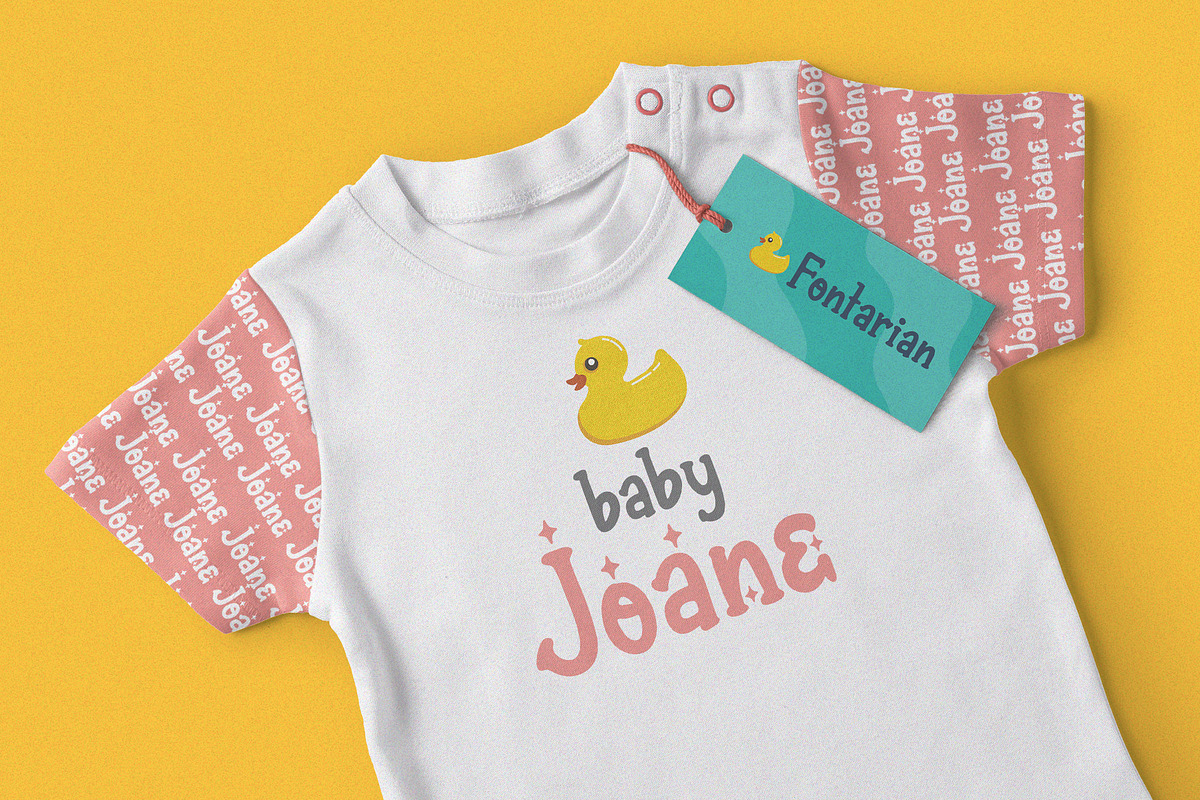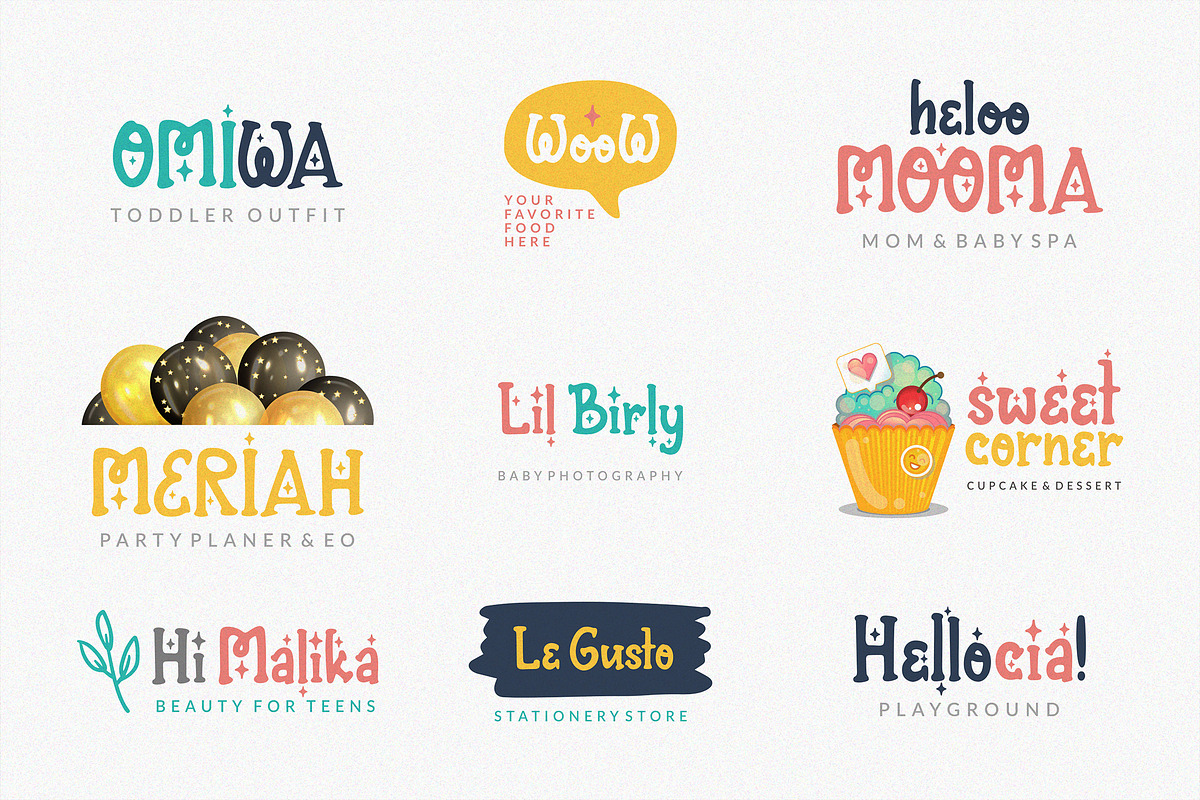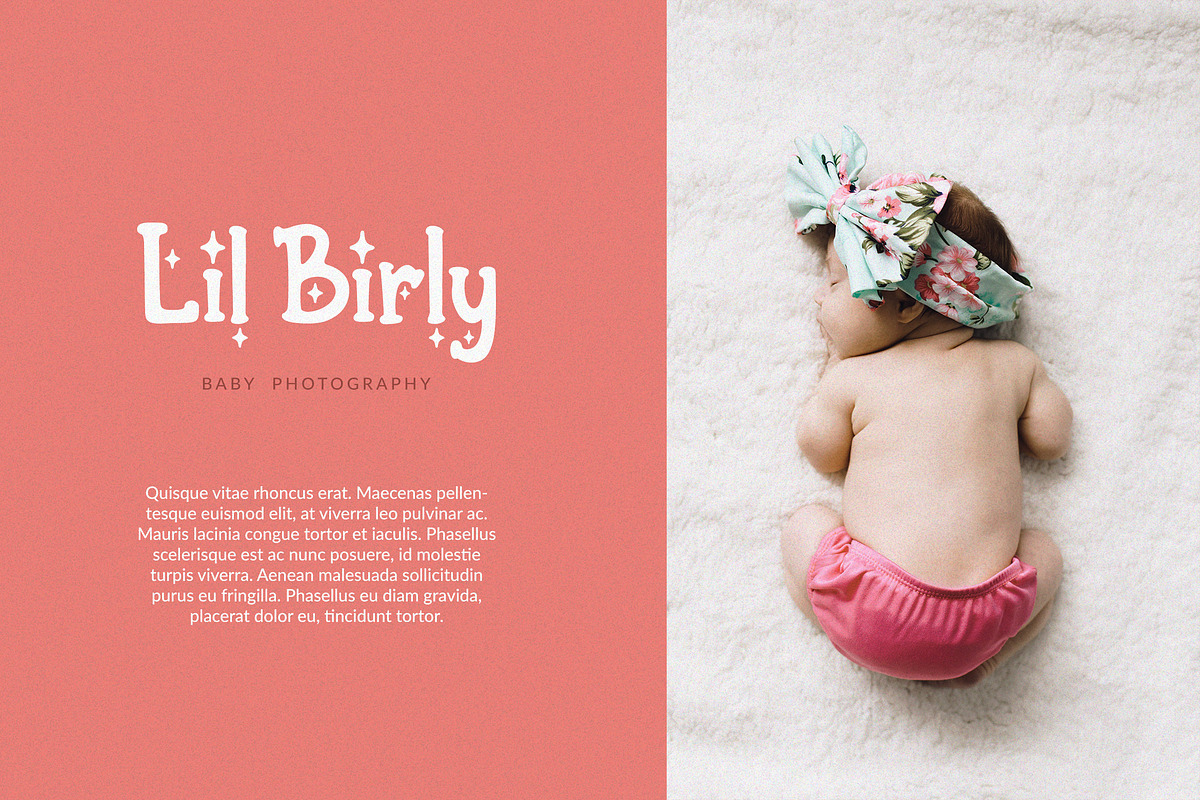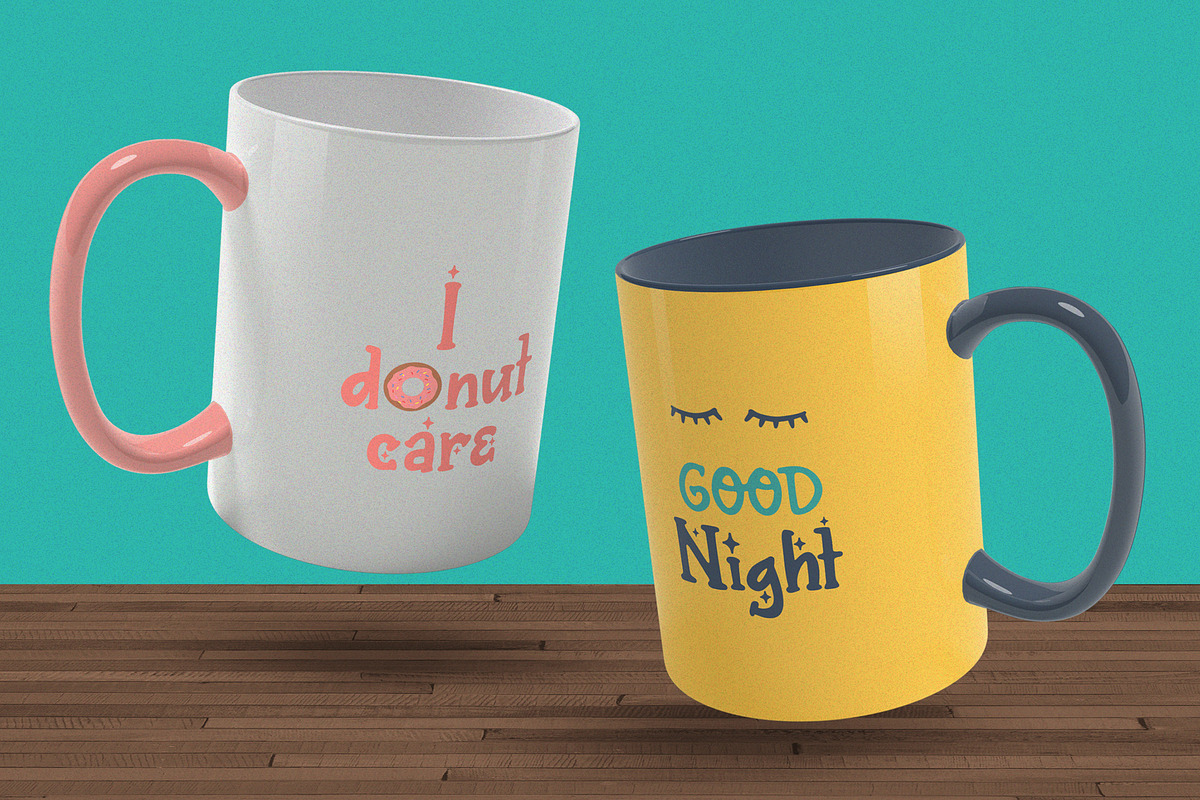
Fontarian Sparkling
If you need some unique, cute, and fun font asset? Here it is, Fontarian Sparkling font.
Fontarian Sparkling is a fun handwritting font which has 2 styles. The inspiration of this font is many magical momments of this years. It's perfect for any unique, cute, and fun projects. And your projects will need this :D